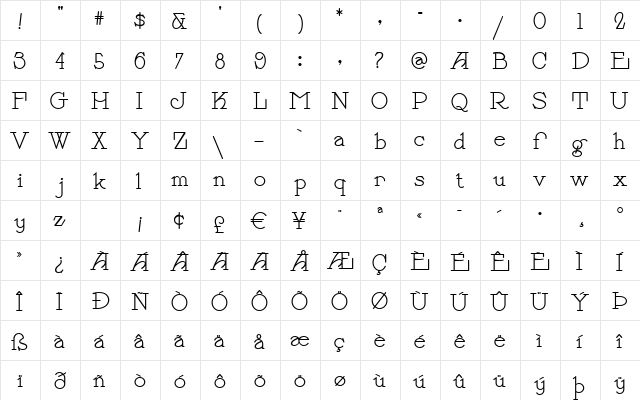
PayzantPen Regular
| Foundry | Nick's Fonts |
| Designer | Nick Curtis |
Design Context for PayzantPen Typeface
PayzantPen takes a measured approach to typography — its balanced proportions and neutral character make it a reliable workhorse for both digital and print work.